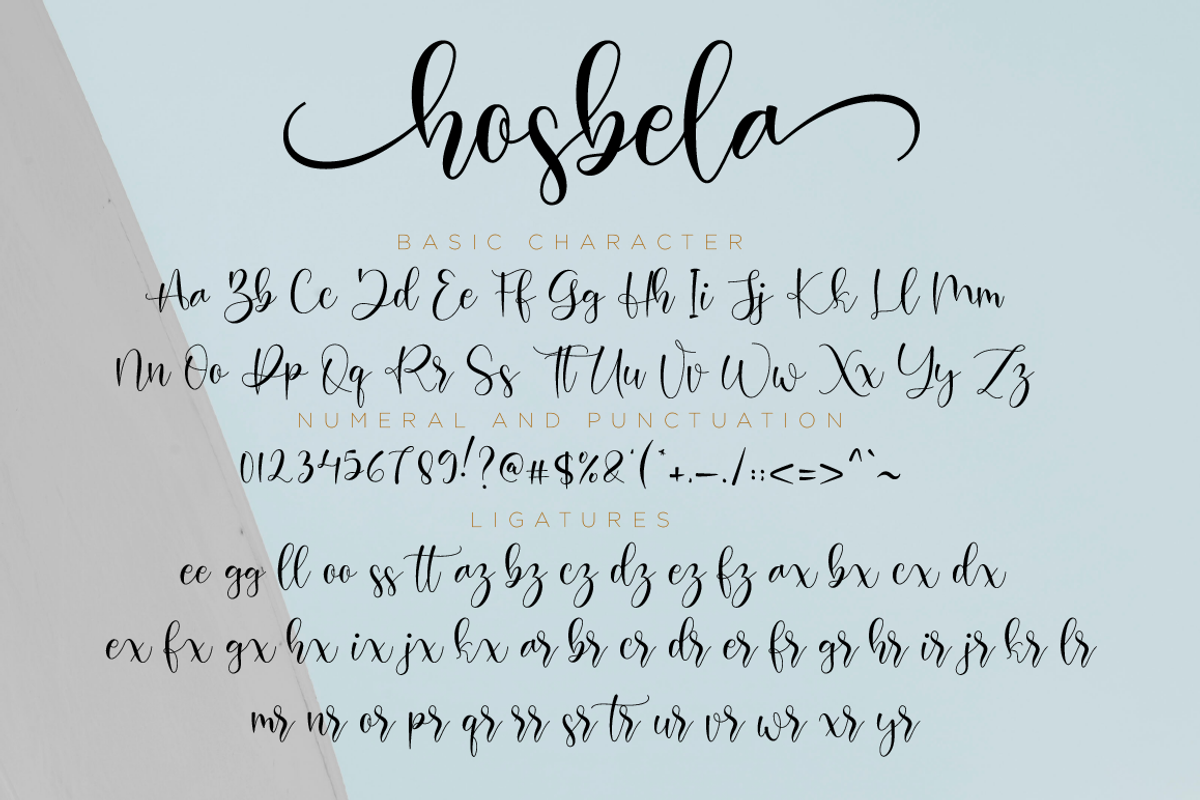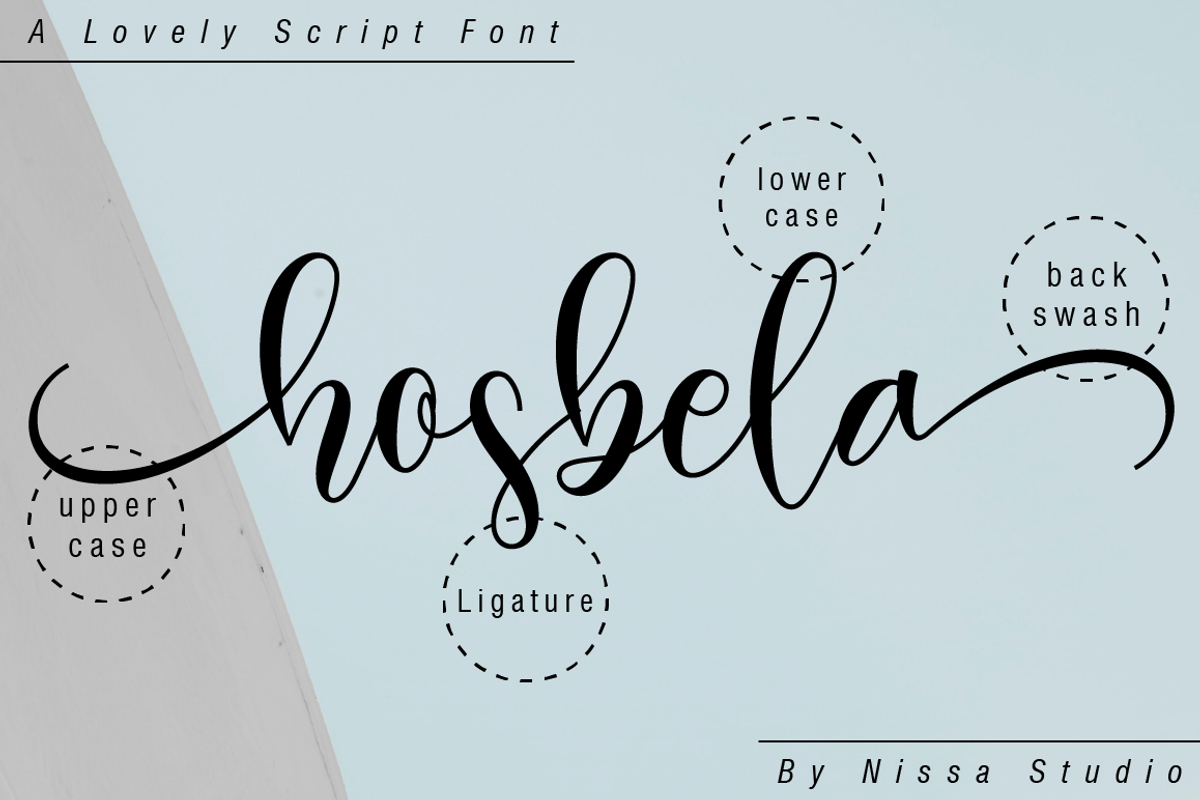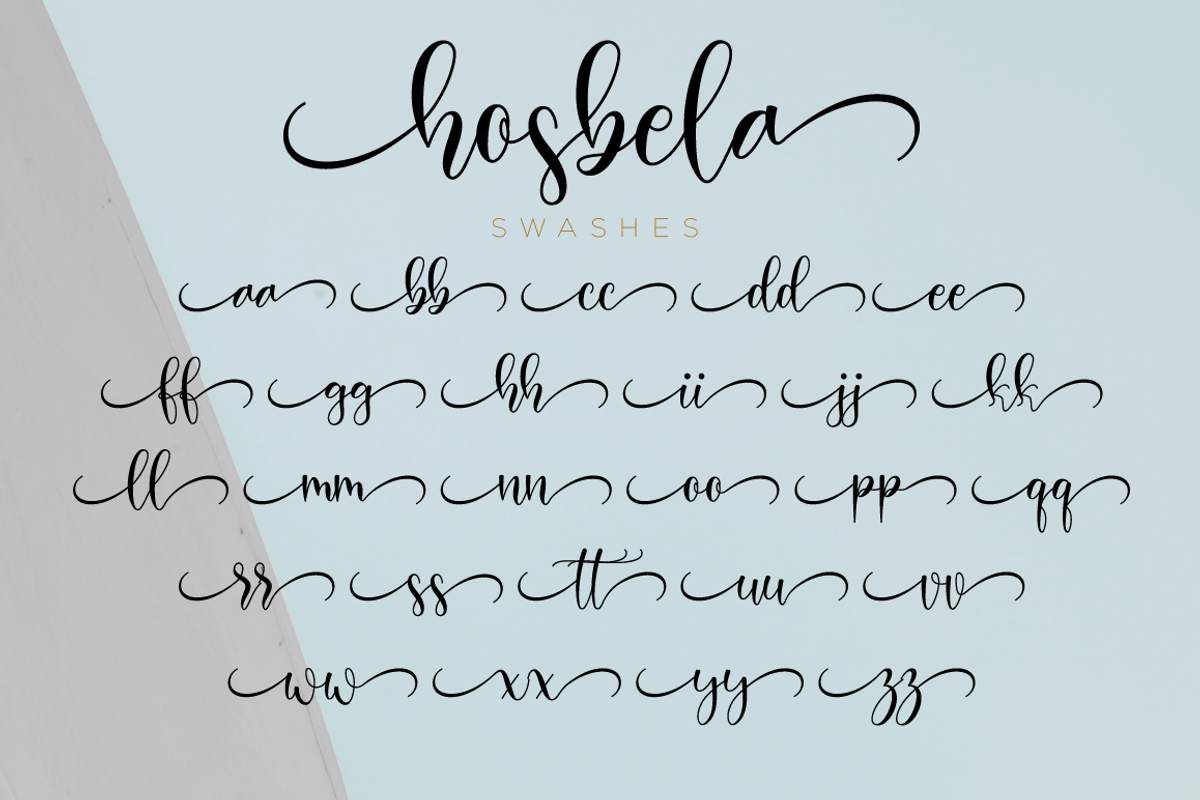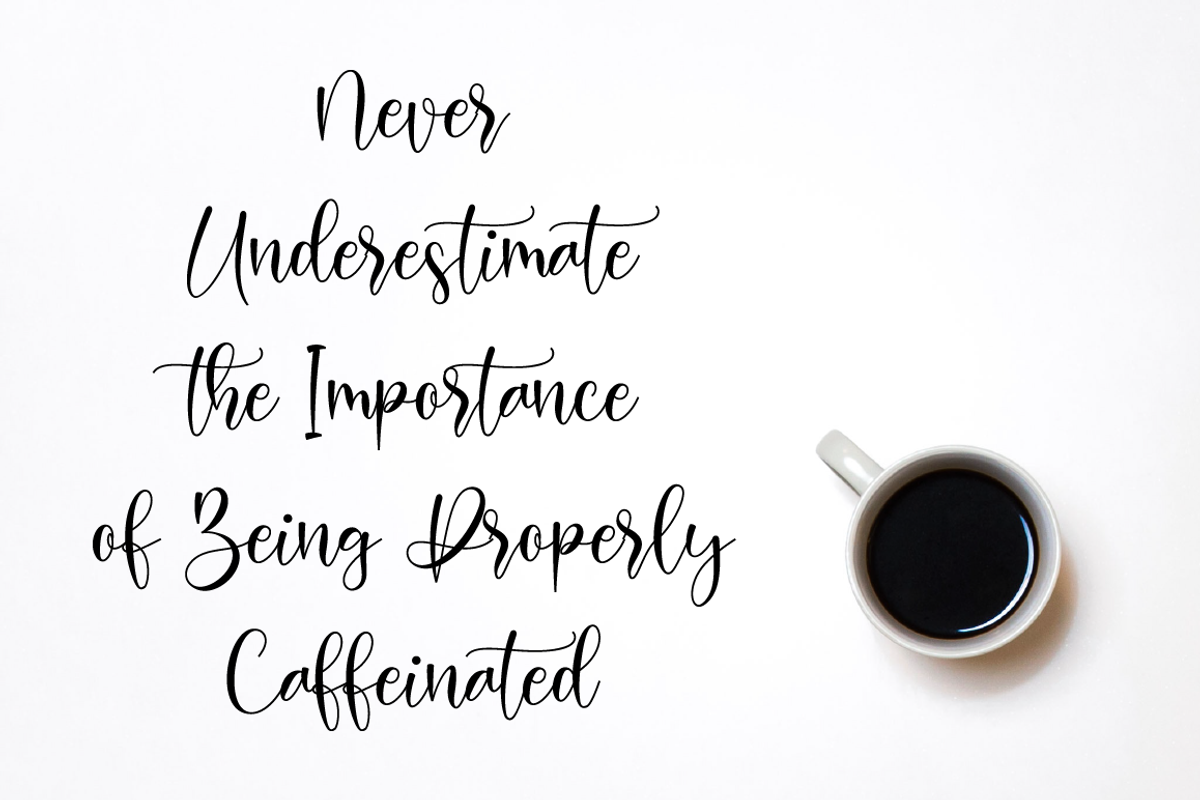
Hosbela Script
The Hosbela is a beautiful script font. It has a classy, elegant, and modern look that works perfectly in any design projects in need of a handwritten touch.
Each Font Has:
- Modern Handwritten Font
- Beautiful Swash (Ending tail)
- Beautiful Titling (Beginning tail)
- Special Ligatures